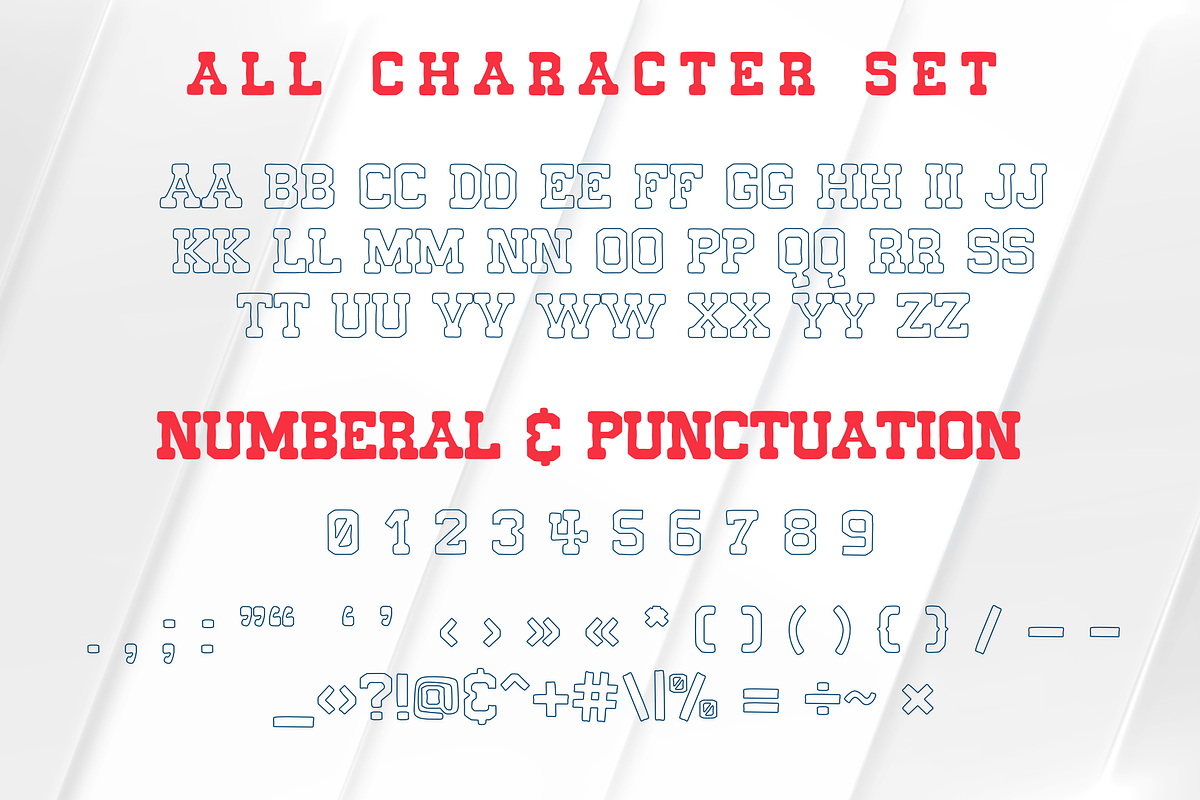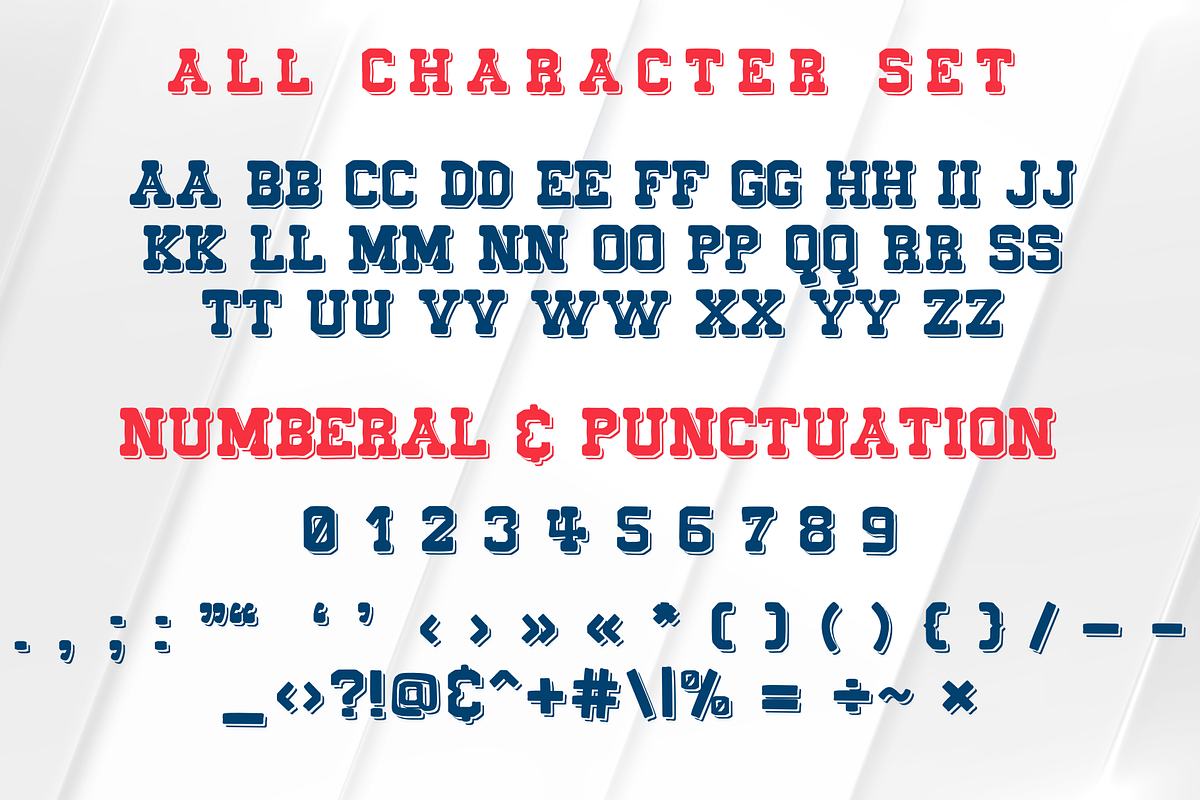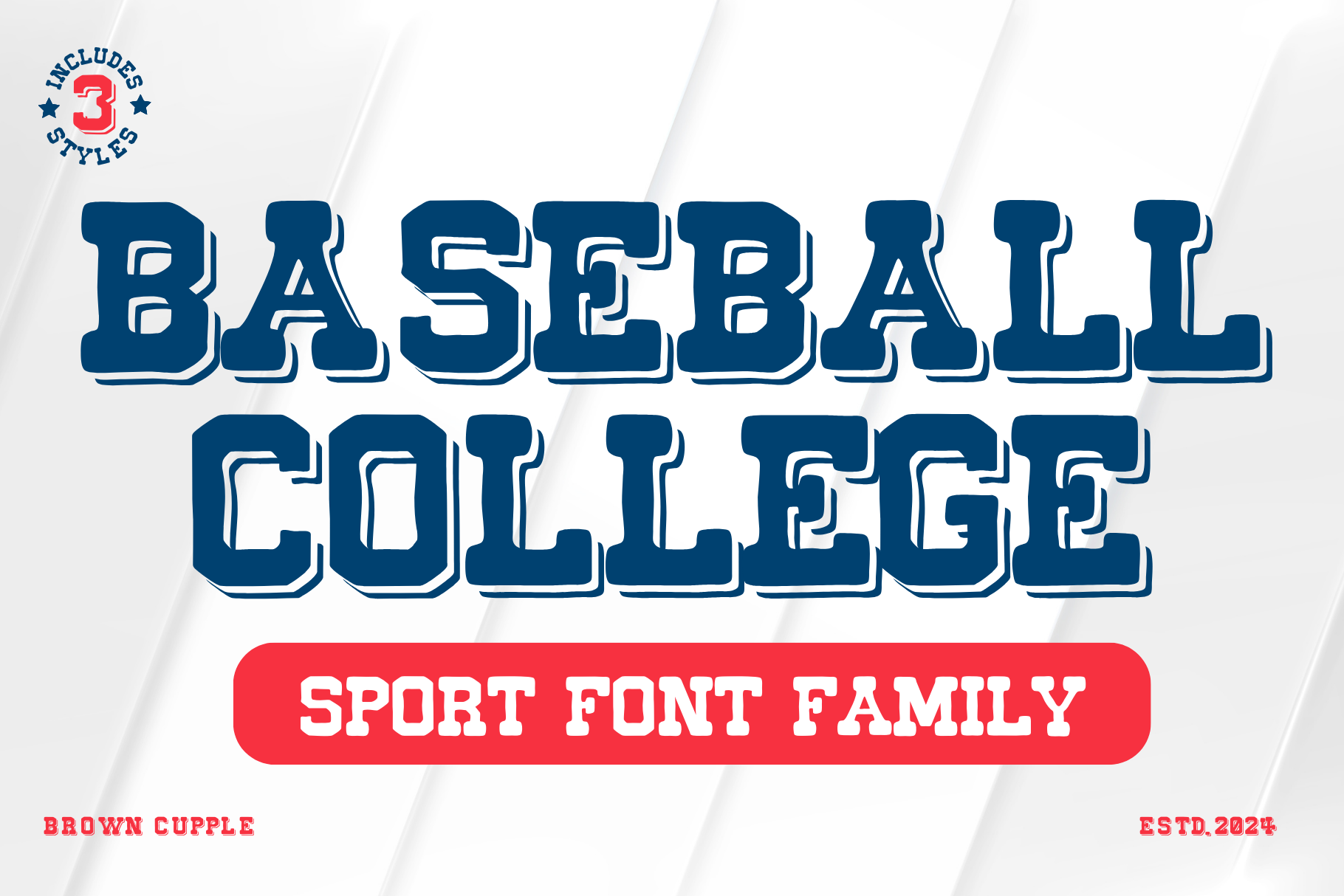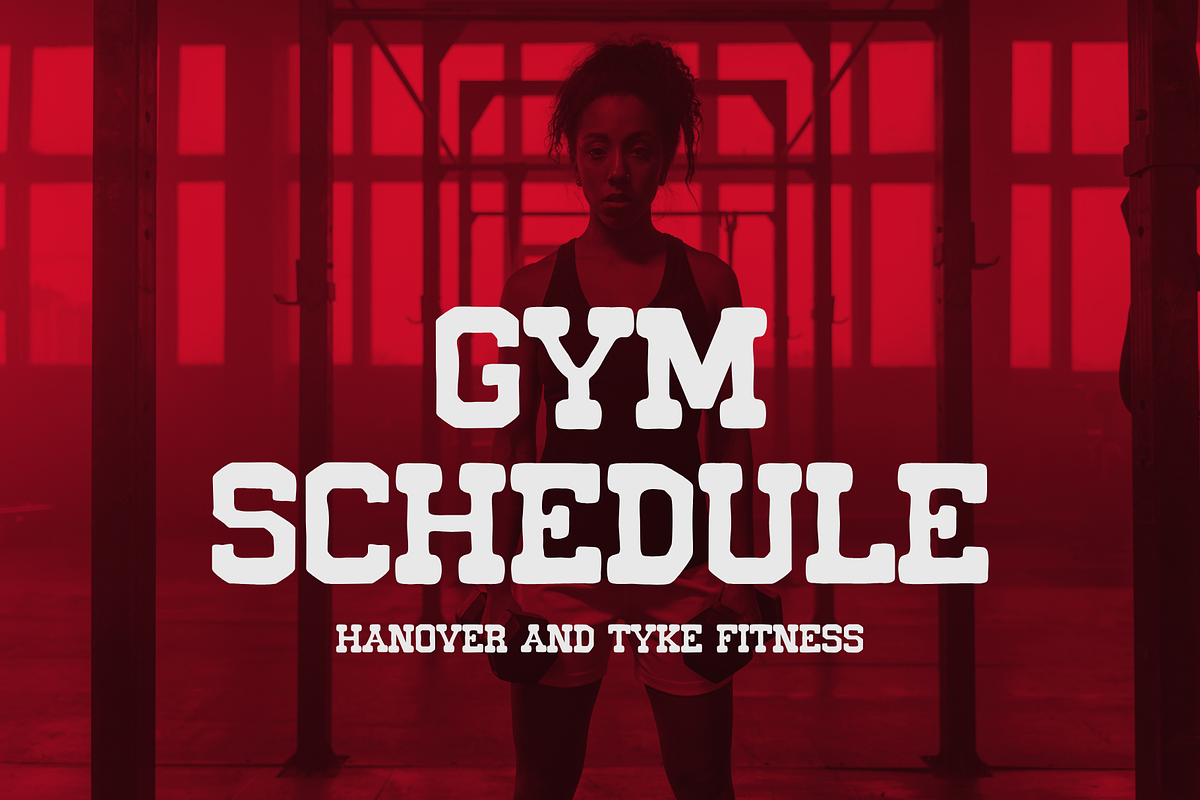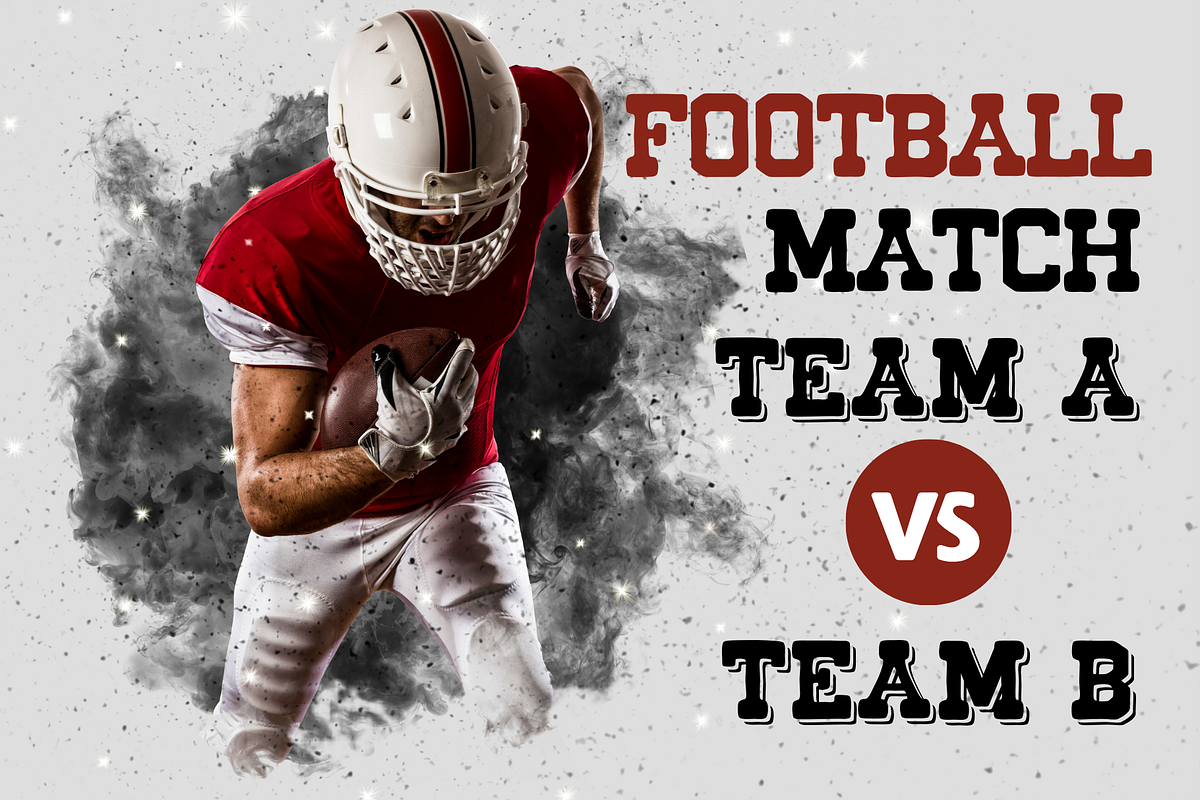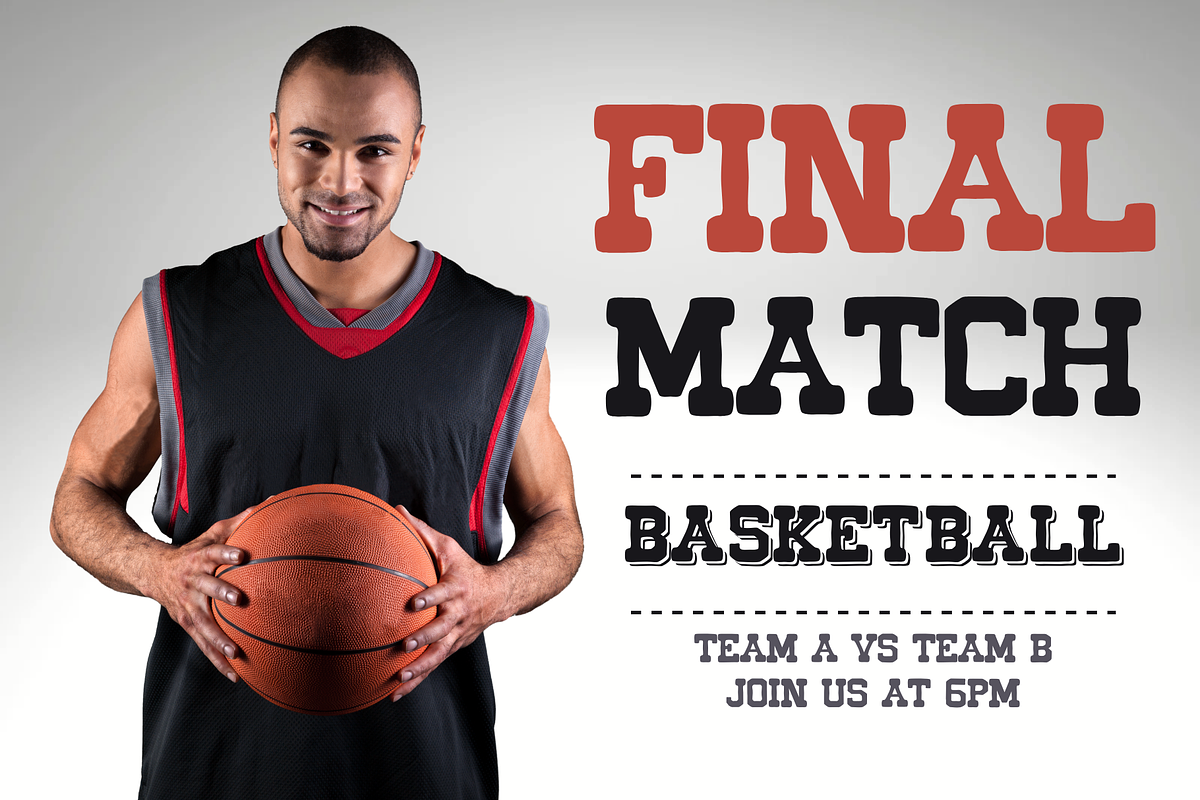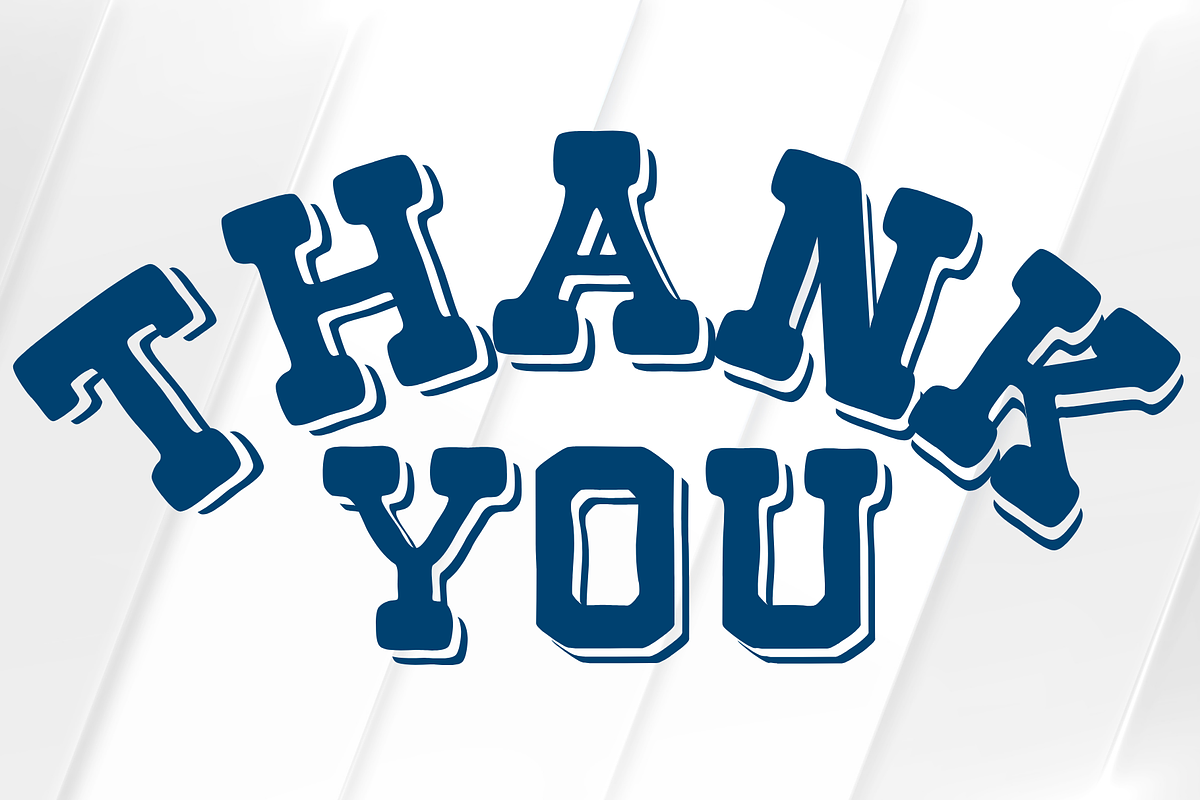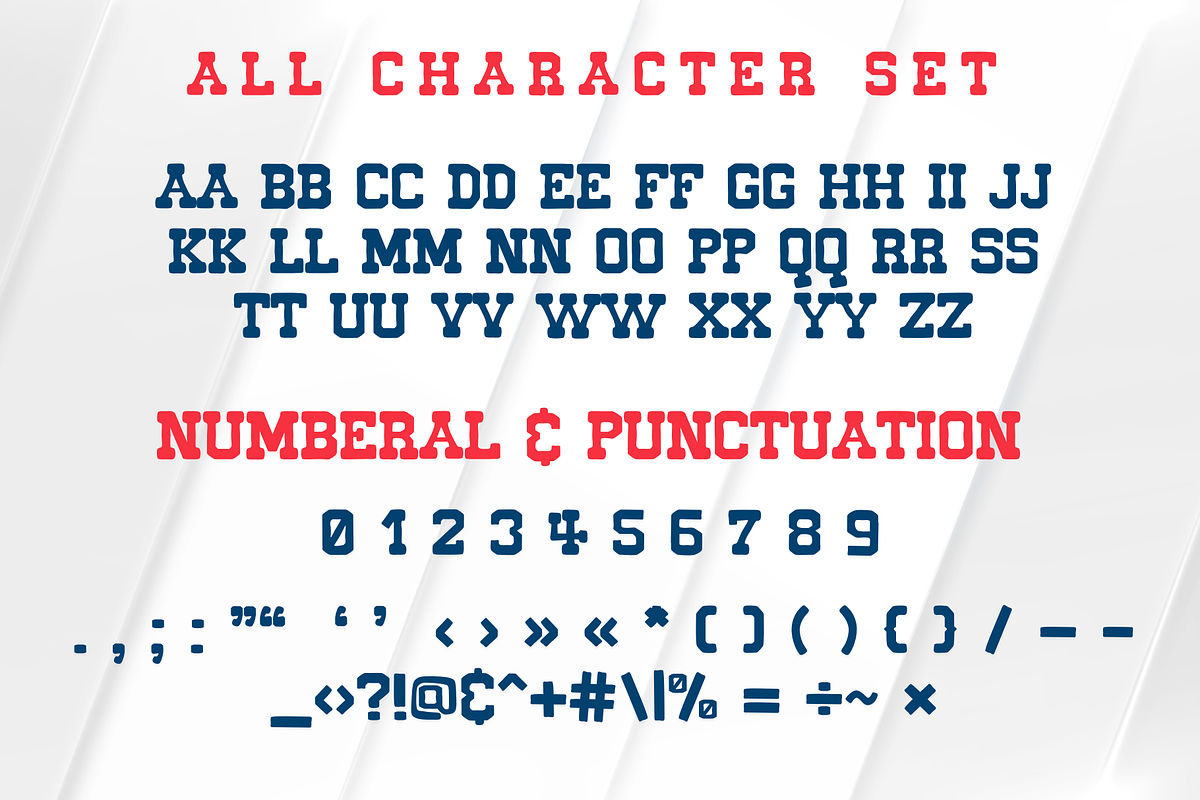
Baseball College is a sport font
Baseball College is a cool sport font. It embodies playfulness and authenticity and is the perfect choice for all your favorite projects, including blog posts, logos, branding, ads, invitations, greeting cards, planners, photo albums, decorations, and more. Add it to any of your designs, and enjoy the results!